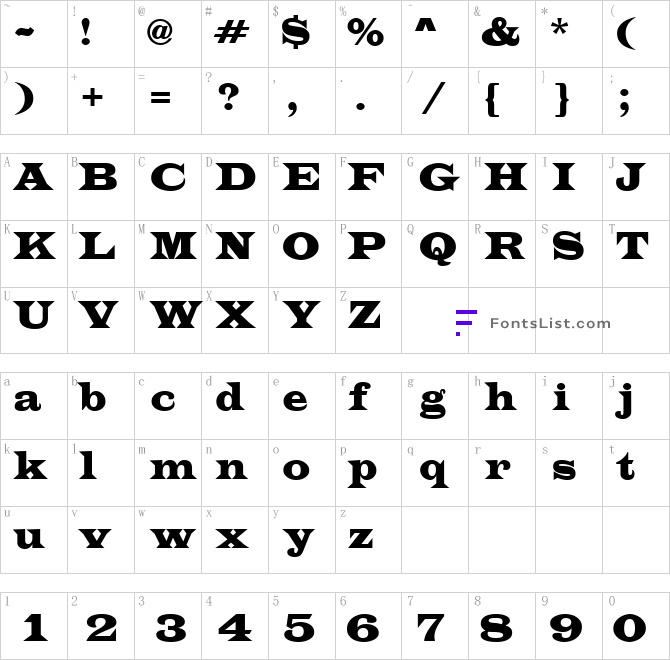
- Font Name:a_LatinoExp
a_LatinoExp.ttf is a very beautiful artistic font, a_LatinoExp.ttf is widely used in the design and printing of various books and pictures,a_LatinoExp.ttf has a strong visual impact,a_LatinoExp.ttf is a commonly used font in newspapers, magazines and books, and is used in posters, e-commerce Poster design, store design, logo design, font design and other fields.a_LatinoExp.